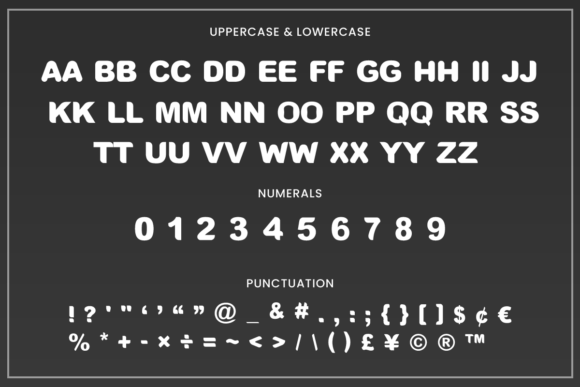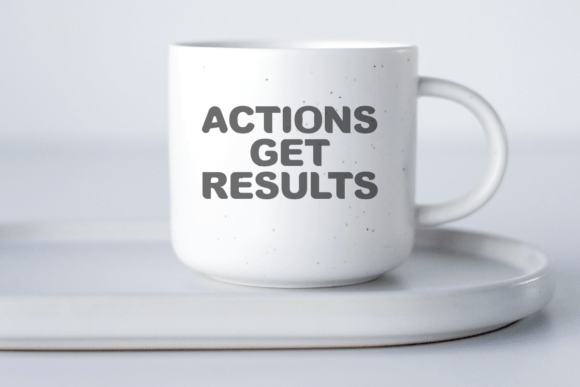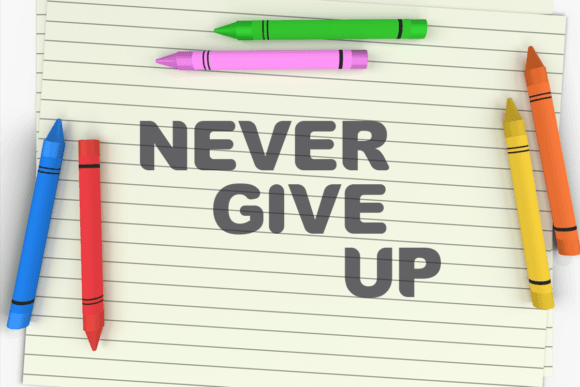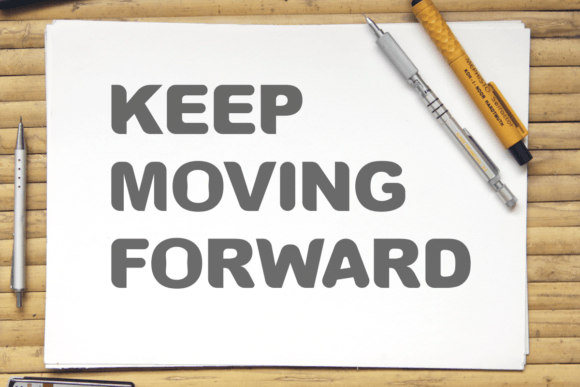
Make a Statement with Bold Thick: The Ultimate Display Font for Impactful Designs
In the world of design, typography plays a crucial role in conveying messages and capturing attention. When it comes to making a statement, a bold and thick font is often the go-to choice. Introducing Bold Thick, a bold display font crafted to command attention and deliver impact. With its strong lines, dynamic shapes, and modern aesthetics, this typeface is perfect for headlines, posters, logos, and any project that demands a powerful presence.
The Power of Bold Thick
Bold Thick is more than just a font – it’s a design statement. Its bold and thick strokes are carefully crafted to grab attention and convey confidence. Whether you’re designing a poster, a logo, or a website, this font is sure to make your message stand out. With Bold Thick, you can add a touch of modernity and sophistication to your designs, elevating them to the next level.
Key Features of Bold Thick
- Strong Lines: Bold Thick features strong, sturdy lines that give it a robust and dependable feel.
- Dynamic Shapes: The font’s dynamic shapes add a touch of modernity and visual interest, making it perfect for designs that require a bit of flair.
- Modern Aesthetics: With its clean and sleek design, Bold Thick is perfect for projects that require a modern and contemporary look.
- High Versatility: This font is highly versatile and can be used for a wide range of projects, from headlines and posters to logos and website titles.
Why Choose Bold Thick?
So, why choose Bold Thick over other fonts? Here are just a few reasons:
- Attention-Grabbing: Bold Thick is designed to grab attention and make a statement. Its bold and thick strokes ensure that your message is seen and heard.
- Easy to Read: Despite its bold design, Bold Thick is surprisingly easy to read, making it perfect for projects that require a clear and concise message.
- Customizable: With Bold Thick, you can easily customize the font to fit your design needs. Whether you need to adjust the size, color, or style, this font is highly adaptable.
Using Bold Thick in Your Designs
So, how can you use Bold Thick in your designs? Here are a few ideas to get you started:
- Headlines: Use Bold Thick to create attention-grabbing headlines that demand attention.
- Posters: Add a bold and eye-catching title to your poster with Bold Thick.
- Logos: Create a powerful and memorable logo with Bold Thick.
- Websites: Use Bold Thick to add a touch of modernity and sophistication to your website titles and headings.
In conclusion, Bold Thick is a bold display font that is perfect for designers and crafters looking to make a statement. With its strong lines, dynamic shapes, and modern aesthetics, this typeface is sure to deliver impact and elevate your designs to the next level. Whether you’re designing a poster, a logo, or a website, Bold Thick is the perfect choice for projects that demand a powerful presence. So why wait? Try Bold Thick today and let your message roar!